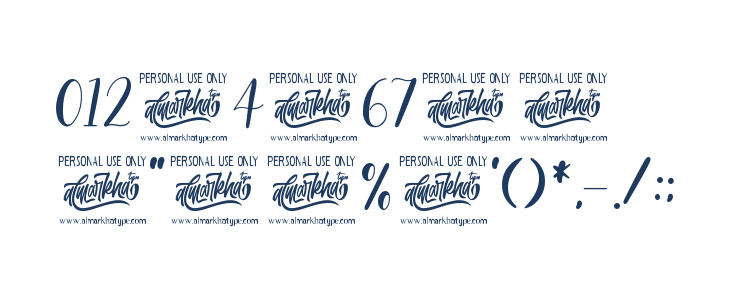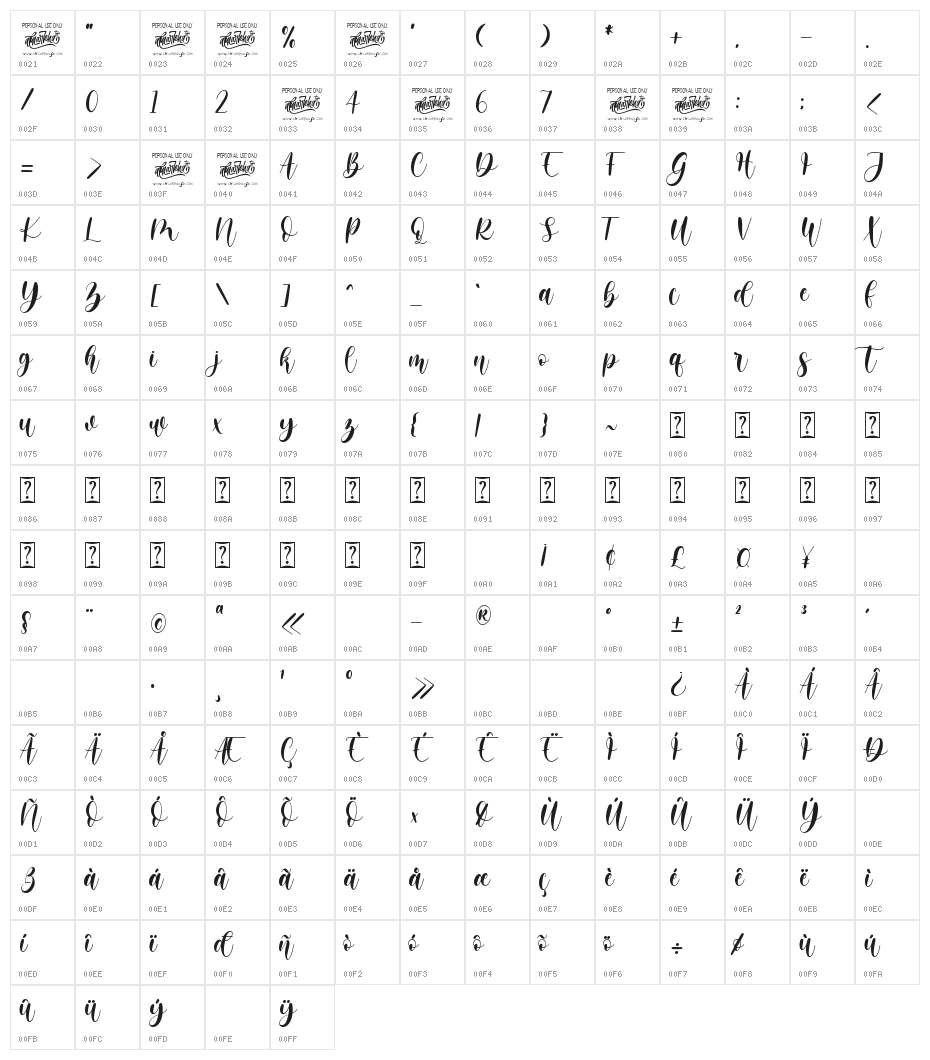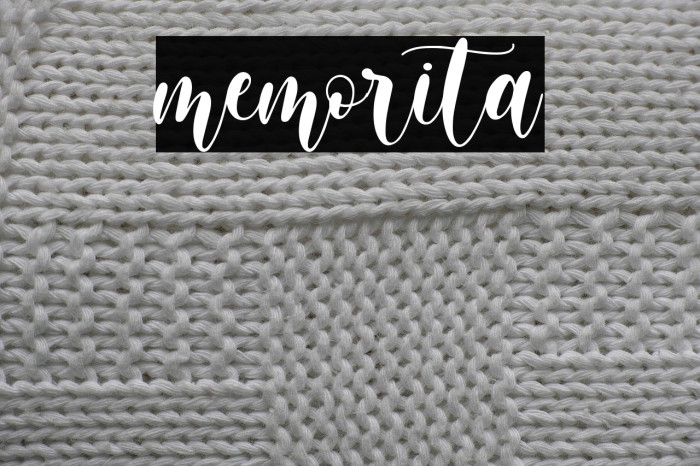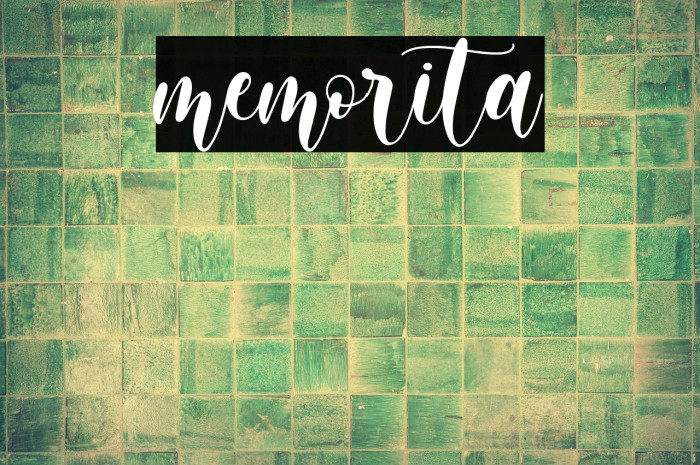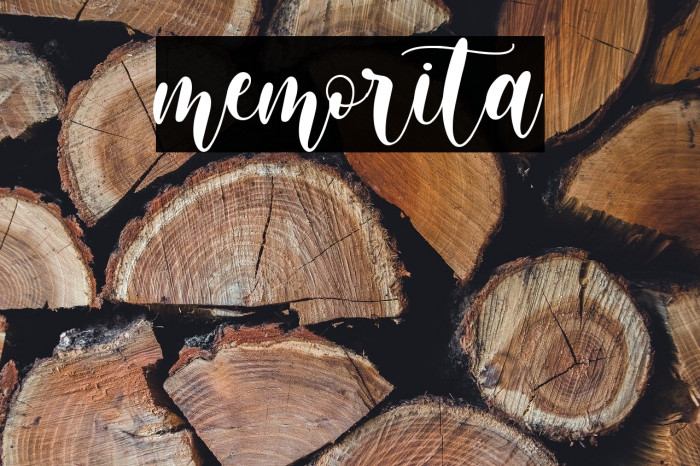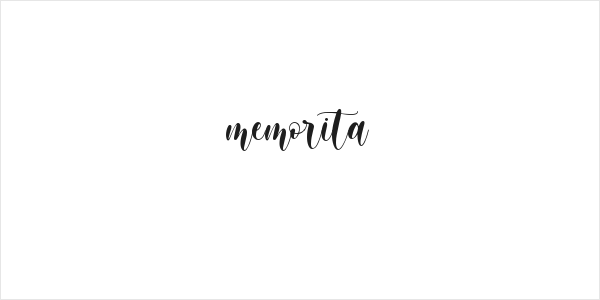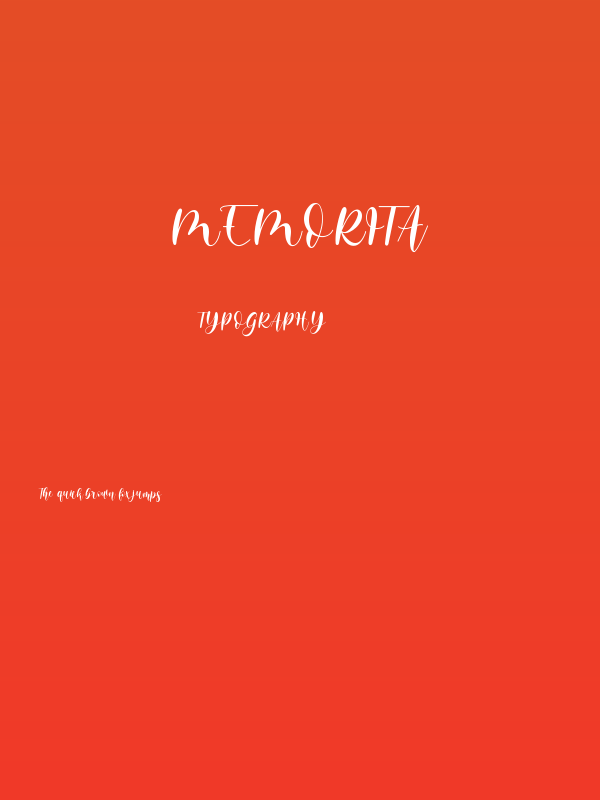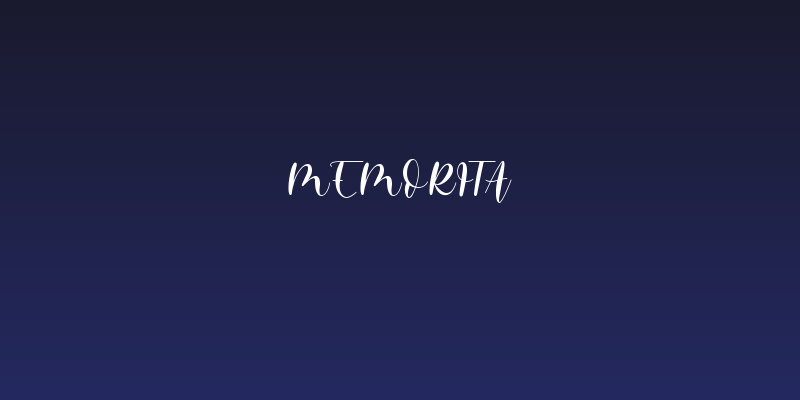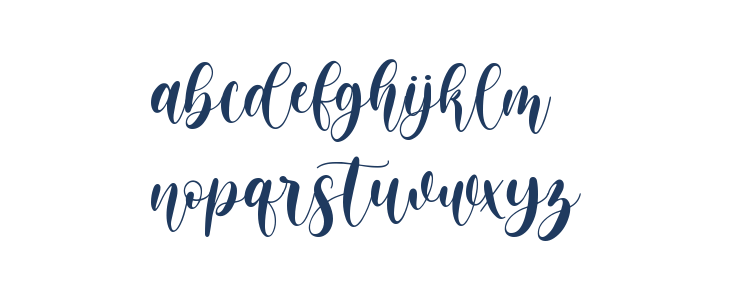
memorita Font
memorita Description
This font features a flowing, cursive style that exudes elegance and sophistication. The letters are interconnected with smooth, sweeping strokes, giving it a handwritten appearance. The uppercase letters are bold and prominent, while the lowercase letters maintain a consistent flow, enhancing readability. The numerals and special characters are crafted with the same fluidity, ensuring a cohesive look across all text elements. This font is ideal for projects that require a personal touch, such as invitations, greeting cards, and branding materials. Its decorative nature makes it suitable for headlines and logos, where a touch of elegance is desired.